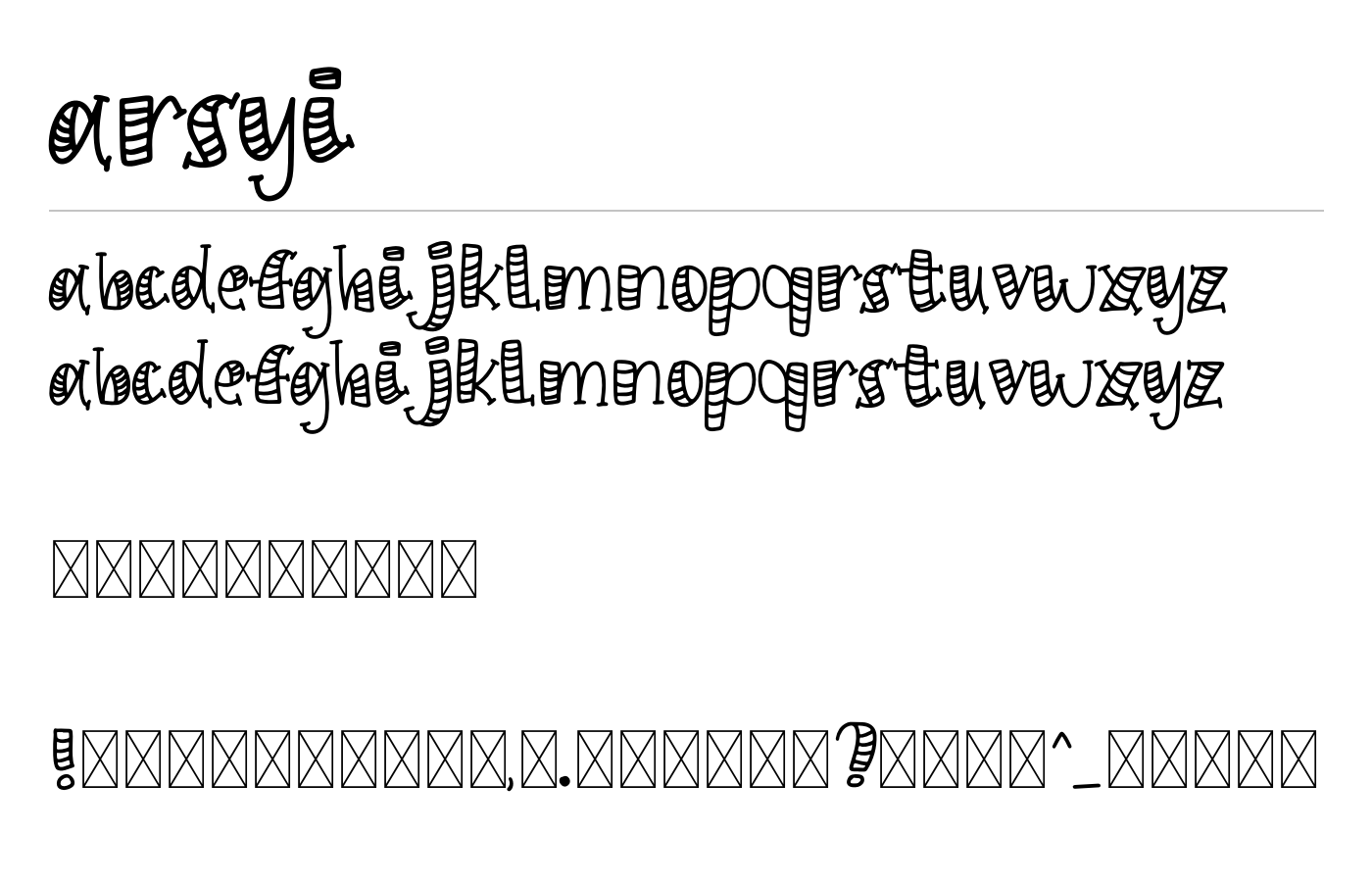
Arsyi is a playful handwritten font characterized by its quirky, uneven letterforms and decorative striped accents within each character. Its casual, whimsical style makes it perfect for creative projects like children’s books, invitations, and fun branding where a friendly and informal feel is desired. This font adds a unique, lighthearted personality to headlines and display uses but works best in smaller doses rather than long body text.
Arsyi Font
About Arsyi Font
| Font family | Arsyi Font |
| Designer | Ana Natalia |